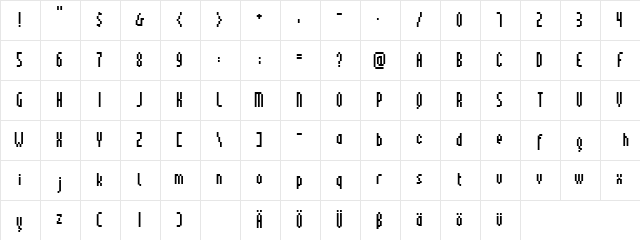
pinx Bold Free Font
pinx Bold
Design Context for pinx
pinx is a composed and adaptable typeface that performs quietly and consistently across a wide range of design contexts. Its bold stroke weight gives it real presence on the page.